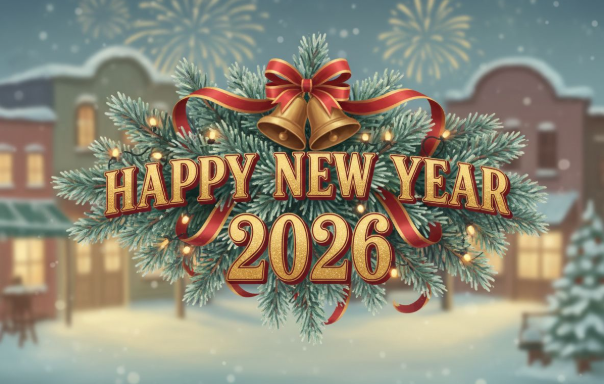
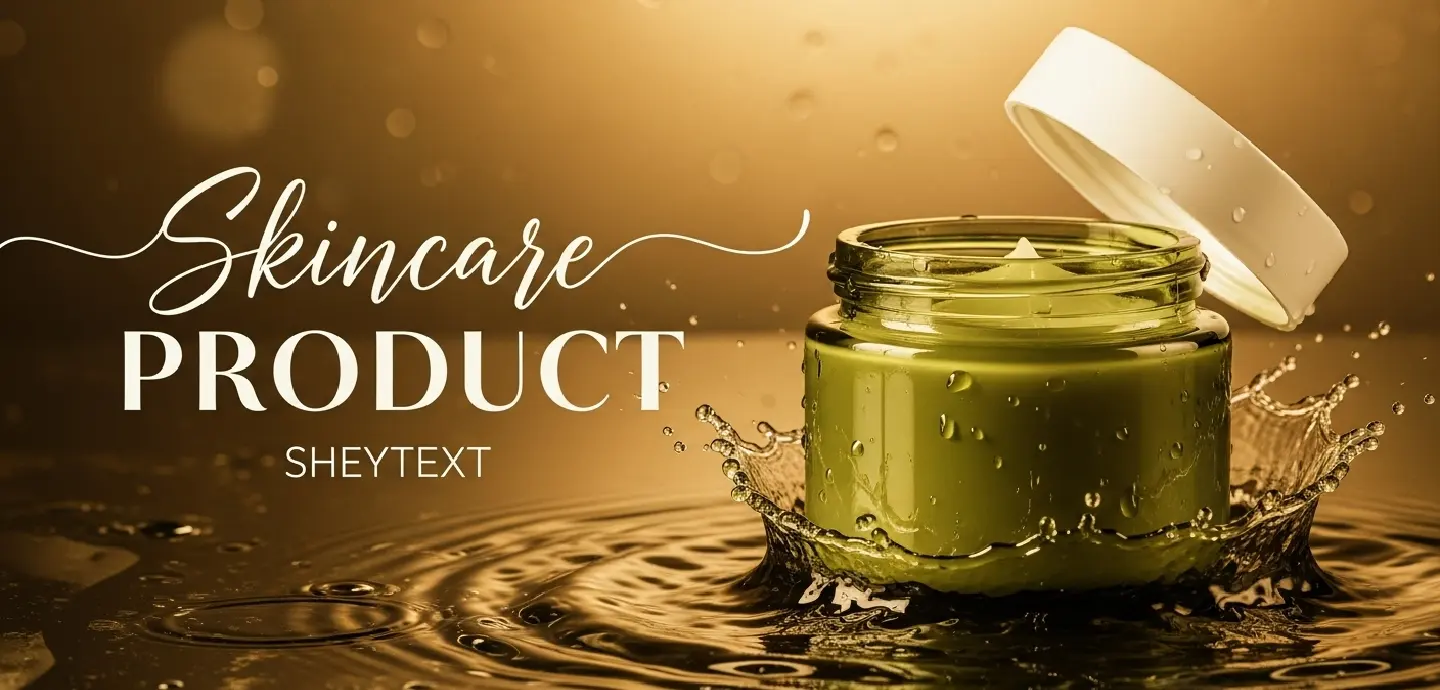
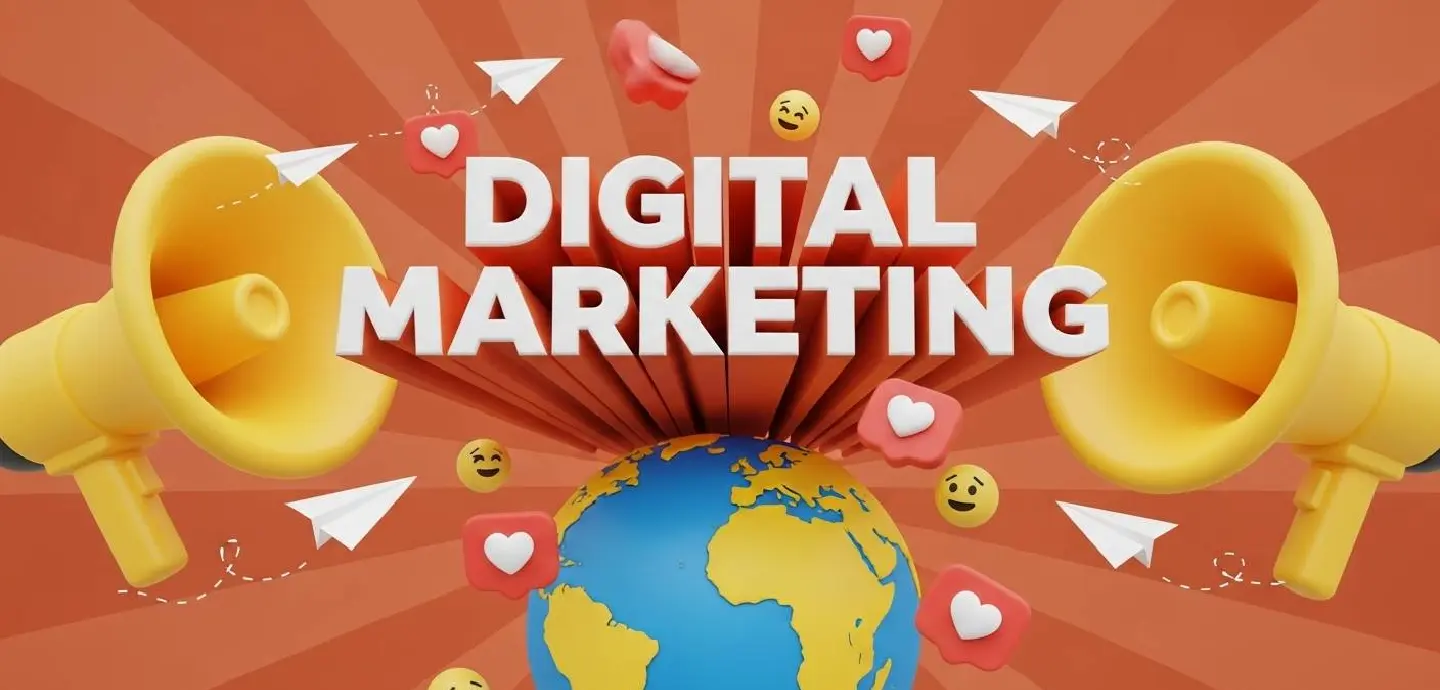
Create better presentations with the right PowerPoint font for every slide. Our collection includes clean, professional slides fonts as well as bold styles for titles and key messages, helping you choose the best font for PowerPoint presentations with ease. With our AI-powered tool, you can preview fonts, customize text, and quickly learn how to add font to PowerPoint for business reports, education slides, and creative presentations—no design experience required.
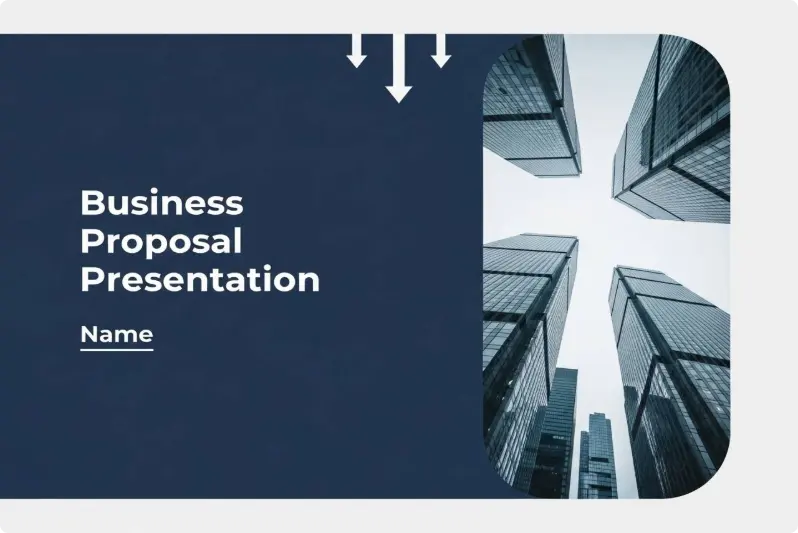
As the best font for PowerPoint when it comes to corporate excellence, this typeface features a sophisticated geometric sans-serif aesthetic with clean, structured lines. It is an essential PowerPoint font for high-stakes business proposals and executive slides, making your professional data and key insights feel authoritative, modern, and impeccably organized.
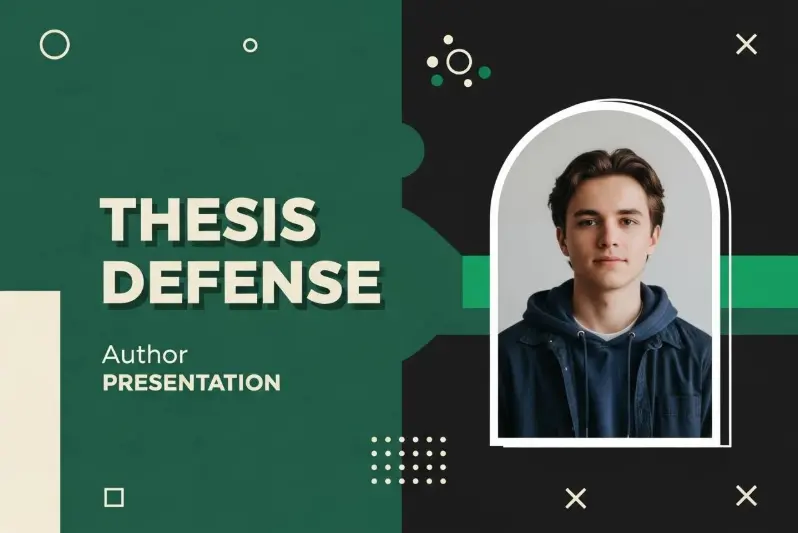
This typeface features a bold, structured aesthetic that ensures your key arguments stand out. It is the essential PowerPoint font for academic research and thesis defenses, designed to make your slides fonts look both rigorous and highly legible, helping you add font to PowerPoint that commands intellectual respect.
If you are looking for the best font for PowerPoint to make your celebrations stand out, this retro 3D display typeface is the perfect choice. It is a highly energetic PowerPoint font designed for event planning, festive branding, and creative posters. By choosing this as your slides fonts, you can easily add font to PowerPoint that brings a bold, cinematic, and festive atmosphere to every presentation.
Explore a diverse collection of slides fonts tailored for every professional need. Whether you are looking for sleek geometric shapes for business reports, rigorous styles for academic research, or creative 3D effects for event planning, our gallery helps you find the best font for PowerPoint to elevate your presentation's visual impact.
The best font for PowerPoint depends on your context. For corporate reports, geometric sans-serif fonts like Premium Geometric Sans offer a modern look. For academic needs, rigorous bold fonts ensure clarity. Our generator helps you create the ideal PowerPoint font to match any professional or creative scenario.